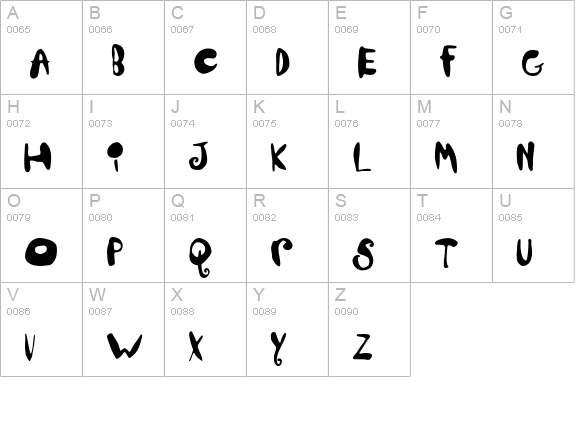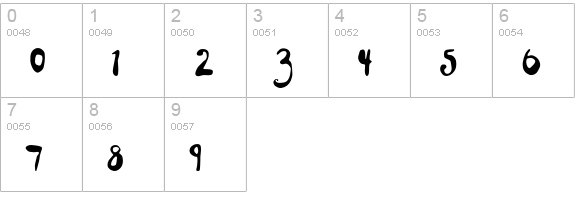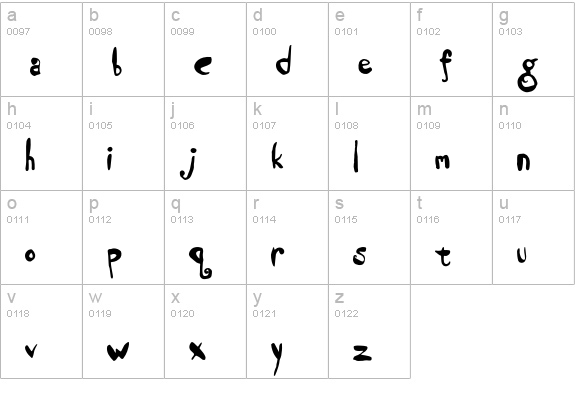
LillaFunk Font Details
LillaFunk font is a whimsical and playful typeface that exudes charm and creativity. Its unique blend of rounded edges and quirky details make it perfect for adding a touch of fun to any design project. Whether you're creating a poster, logo, or invitation, LillaFunk will bring a sense of joy and lightheartedness to your work. What's even better is that LillaFunk font is available for free download at FontsMarket.com. Yes, you read that right - this delightful font can be yours at no cost, allowing you to unleash your creativity without any limitations. So why wait? Download LillaFunk today and let your imagination run wild with this fantastic typeface.